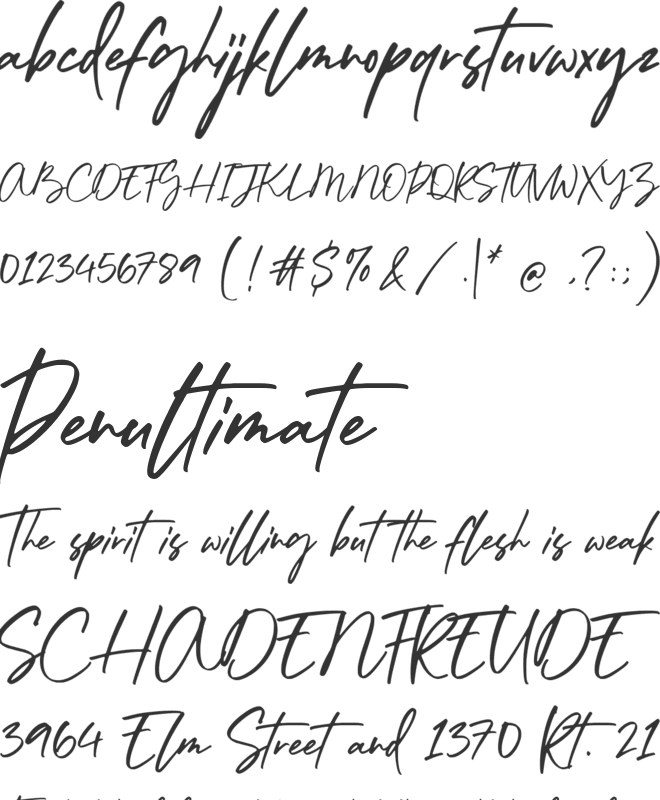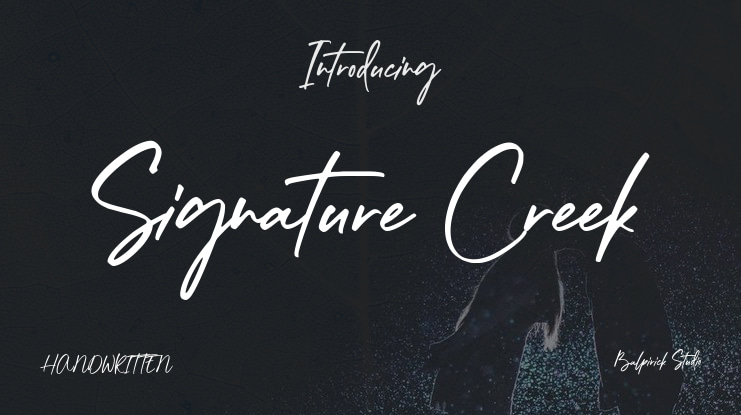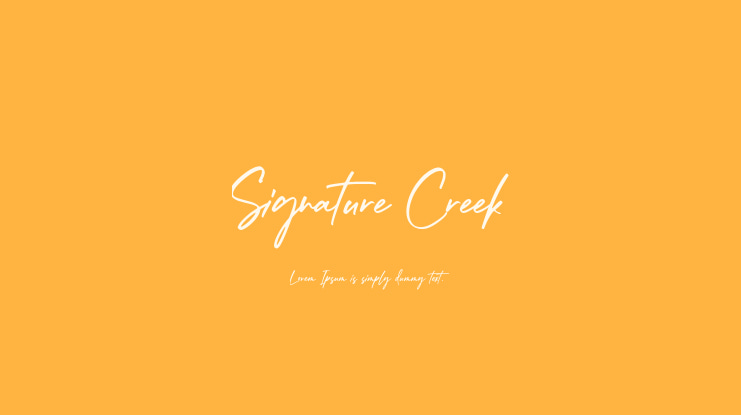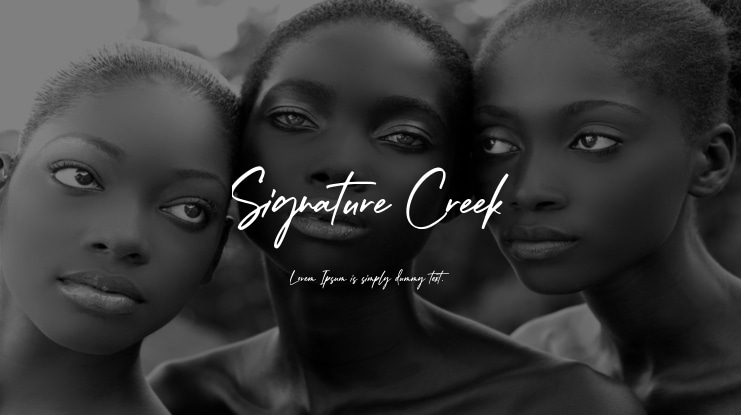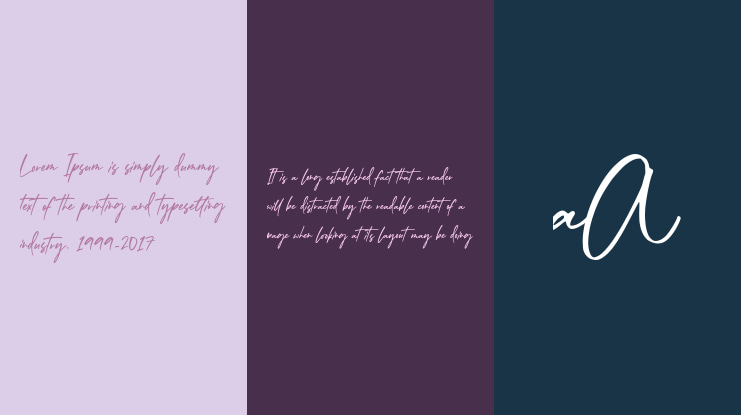
Signature Creek Font
Introducing by Balpirick Studio.
Signature Creek is a Modern Handbrushed Script Font that's perfect for adding a personal touch to your design projects! With its natural, organic feel and unique character.
Crafted with care and attention to detail, this font is incredibly versatile and can be used for a range of design projects, including logos, branding, invitations, and more. Its modern, handwritten style gives it a unique character that's sure to make an impact.